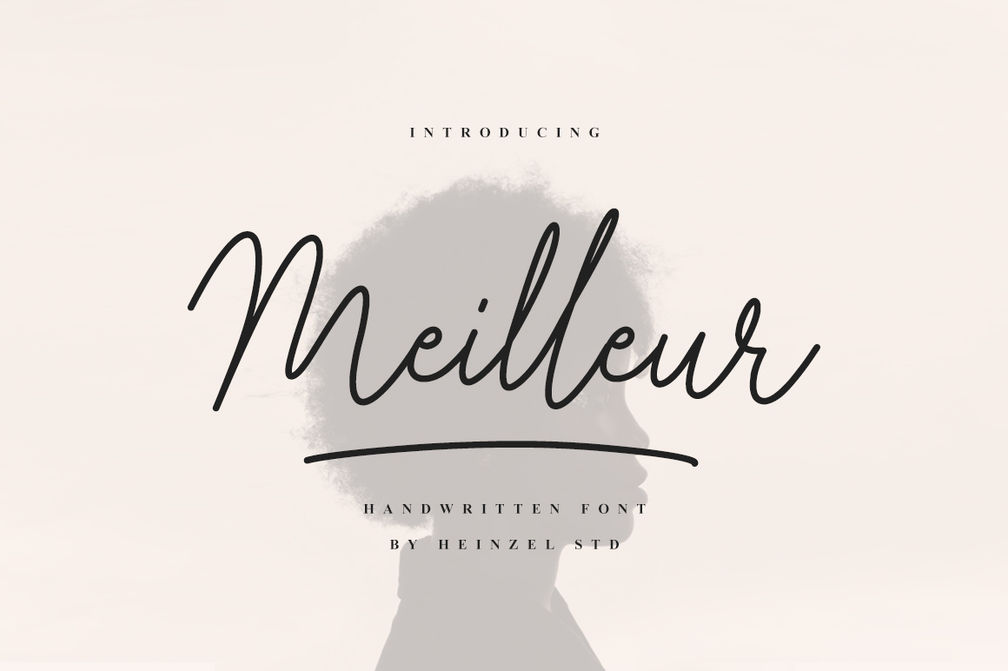
Meilleur Handwritten Font
Meilleur is a flowing handwritten font, described by an elegant touch, perfect for your favorite projects. It looks stunning on wedding invitations, thank you cards, quotes, greeting cards, logos, business cards and every other design which needs a handwritten touch. Fall in love with its incredibly distinct and timeless style and use it to create spectacular designs!
Elevate your designs with the signature elegance of Meilleur Handwritten Font. Let its refined and sophisticated charm captivate your audience and make a lasting impact. Embrace the versatility and convenience of this digital font to create memorable and visually stunning designs.
Meilleur Features :
- Uppercase and Lowecase
- Numerials and Punctuations
- Ligatures
- Multilingual Support : ÁÂÃÄÅÆÇÈÉÊËÌÍÎÏÐÑÒÓÔÕÖØÙÚÛÜÝÞß àáâãäåæçèéêëìíîïðñòóôõöøùúûüýÿþ
This character set supports the following 21 languages: Afrikaans, Basque, Breton, Catalan, Danish, Dutch, English, Finnish, French, Gaelic (Irish, Scots), German, Icelandic, Indonesian, Irish, Italian, Norwegian, Portuguese, Saami (Southern), Spanish, Swahili, Swedish.